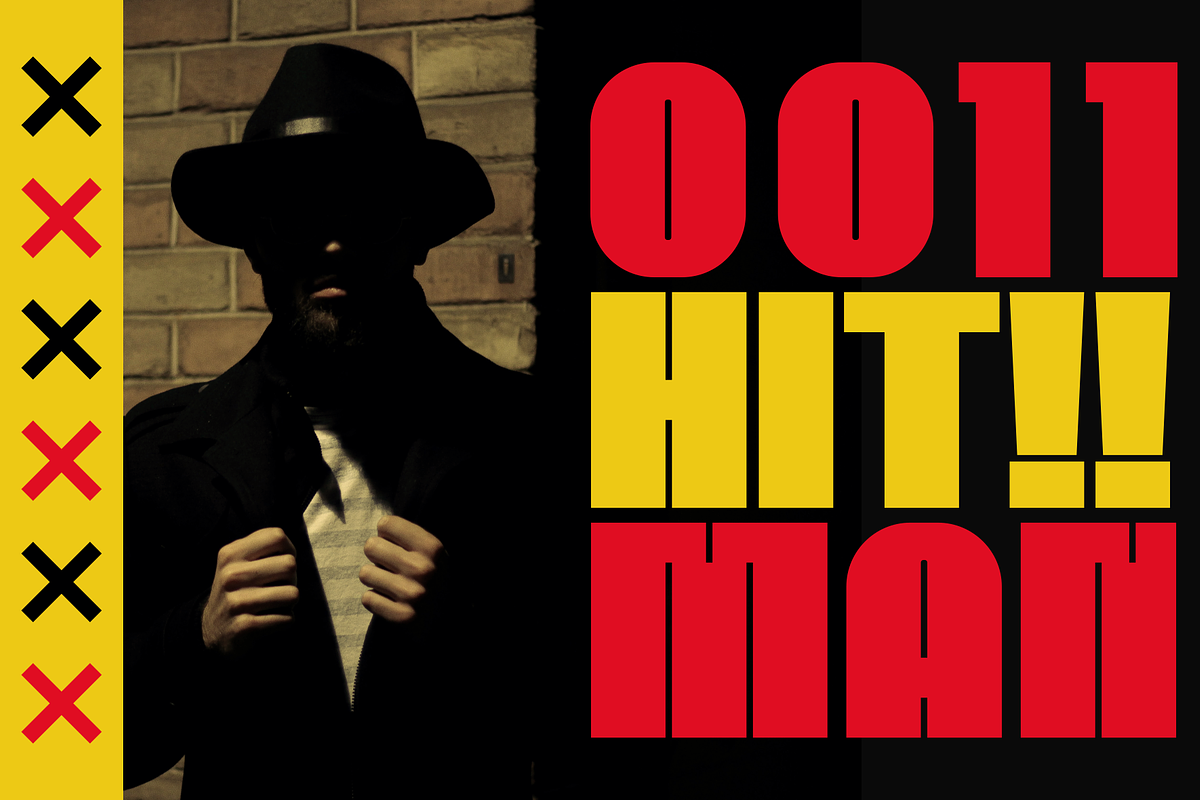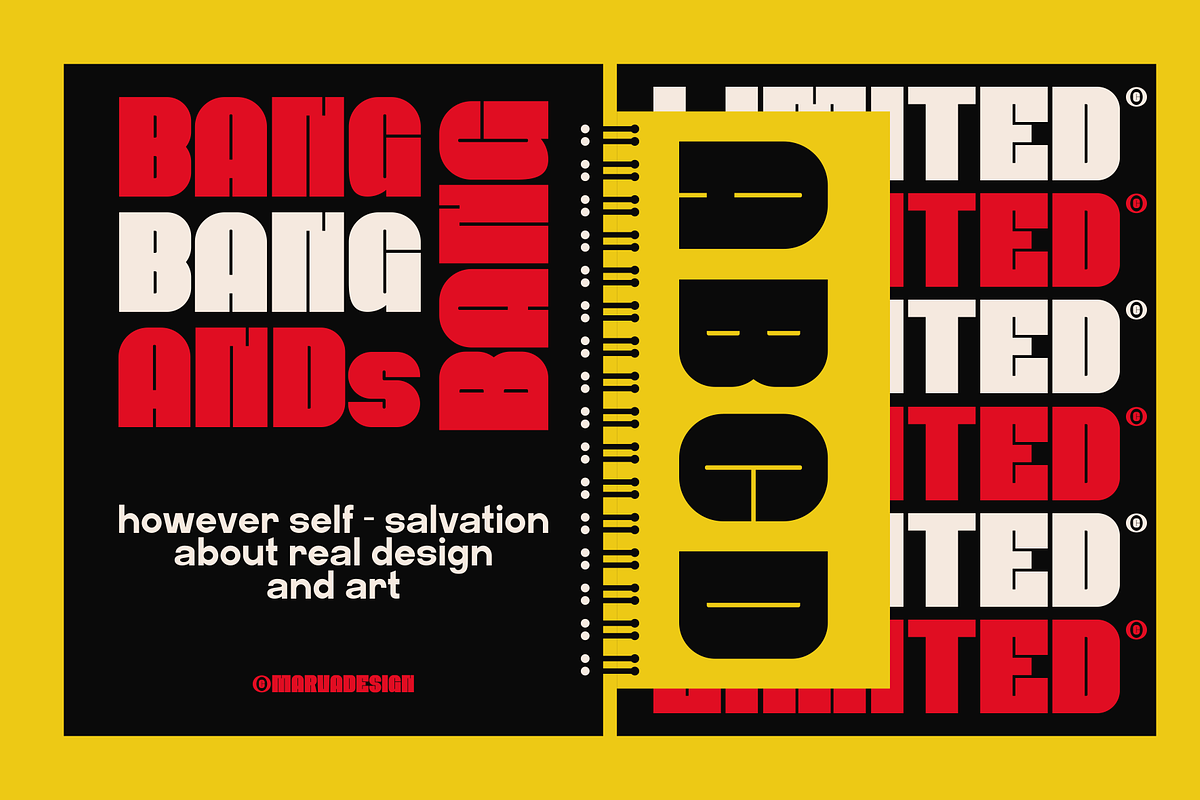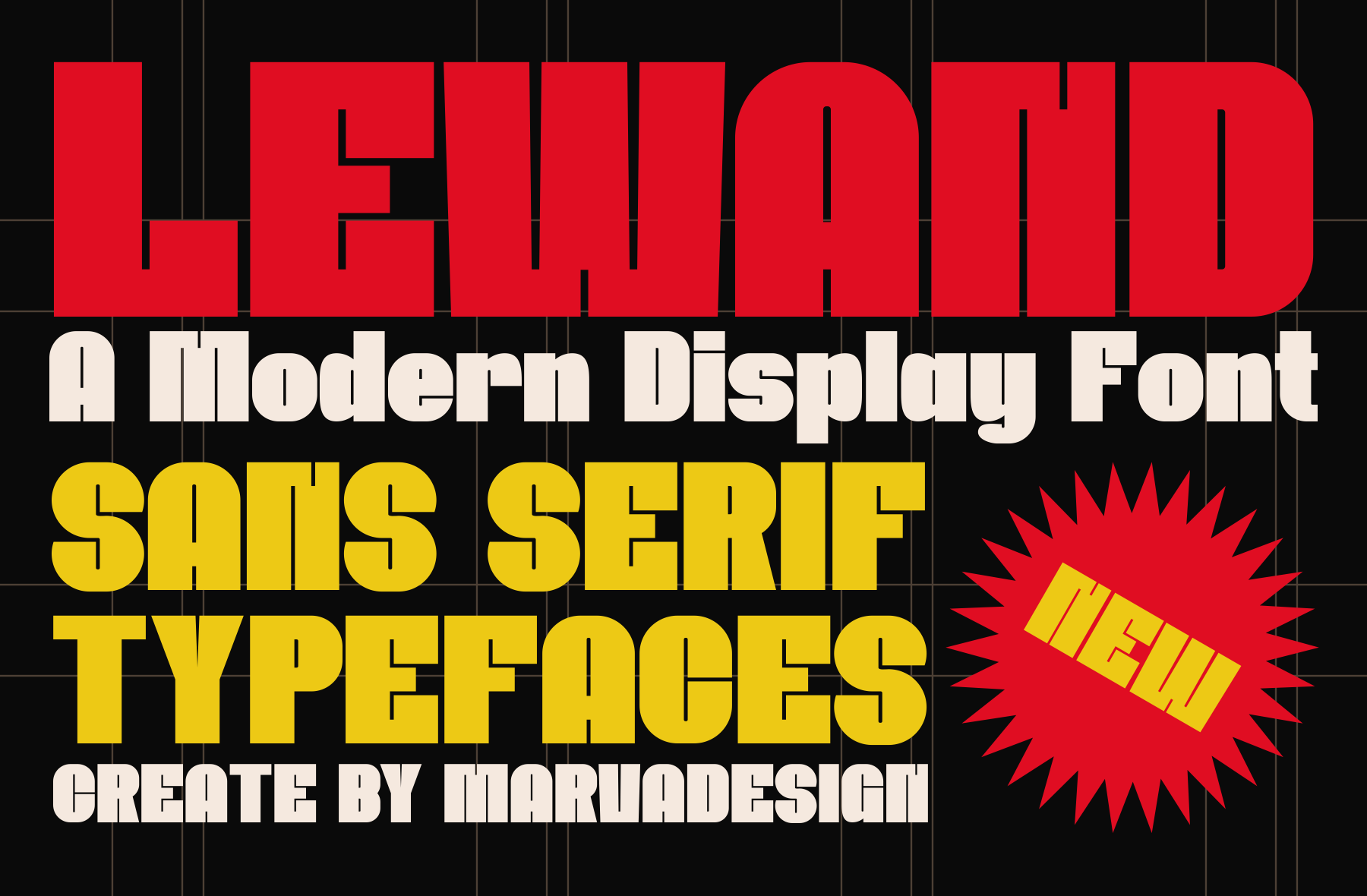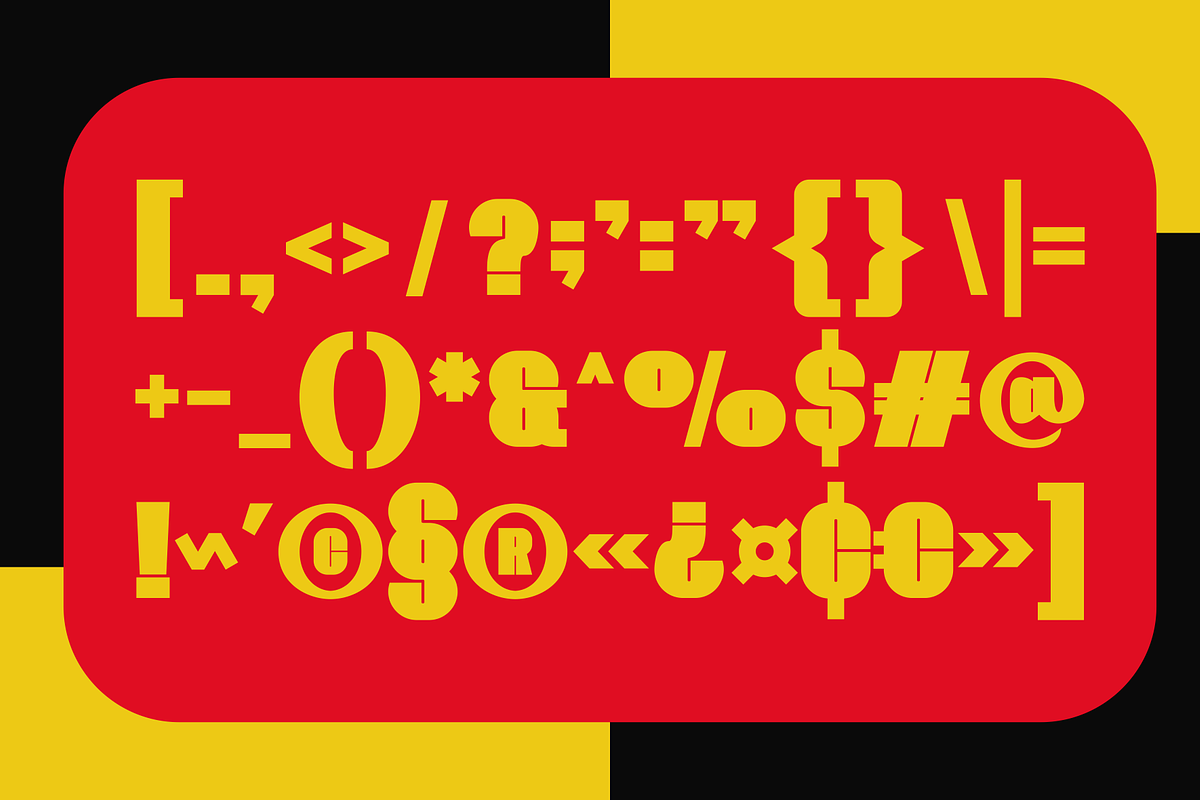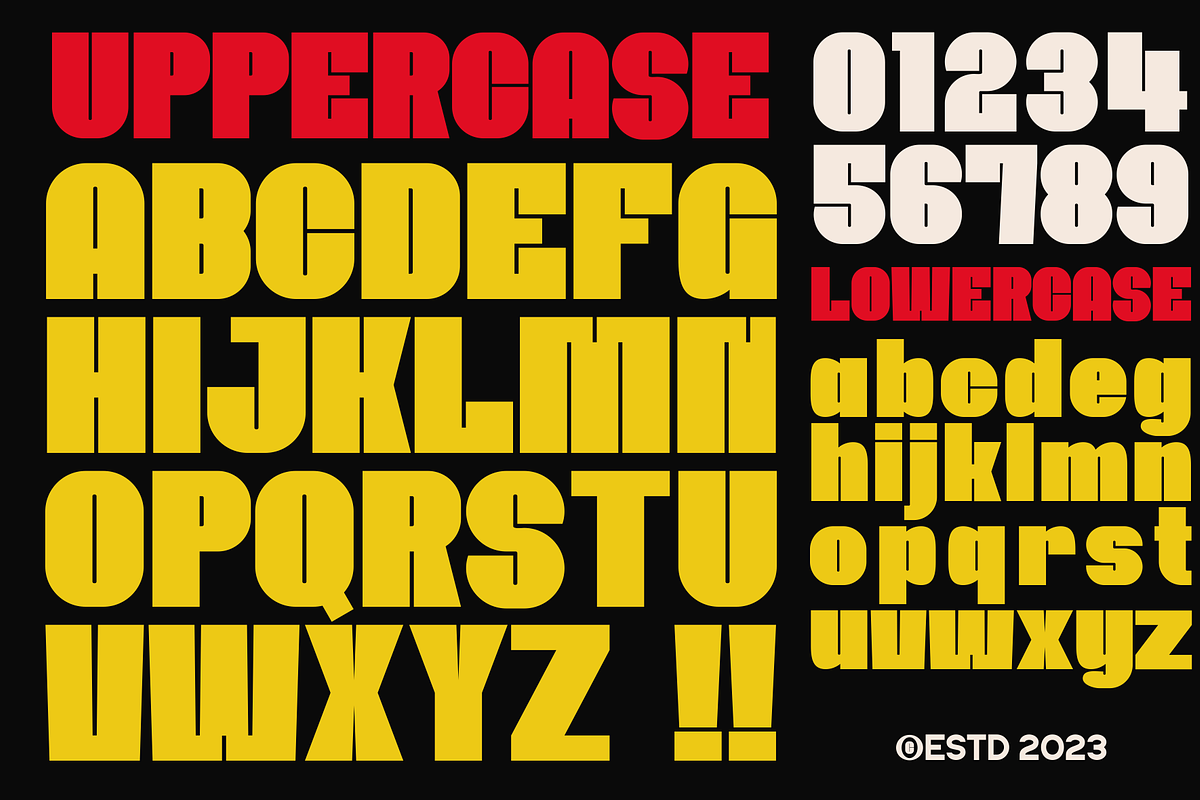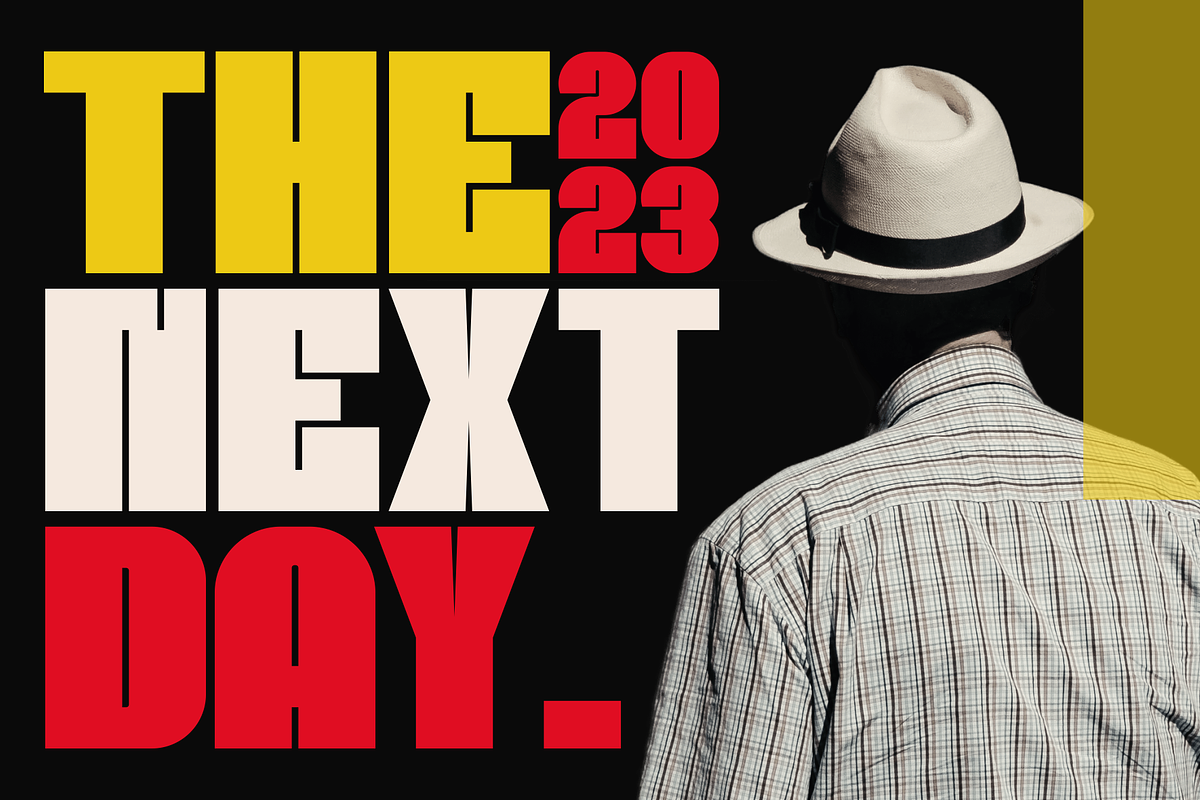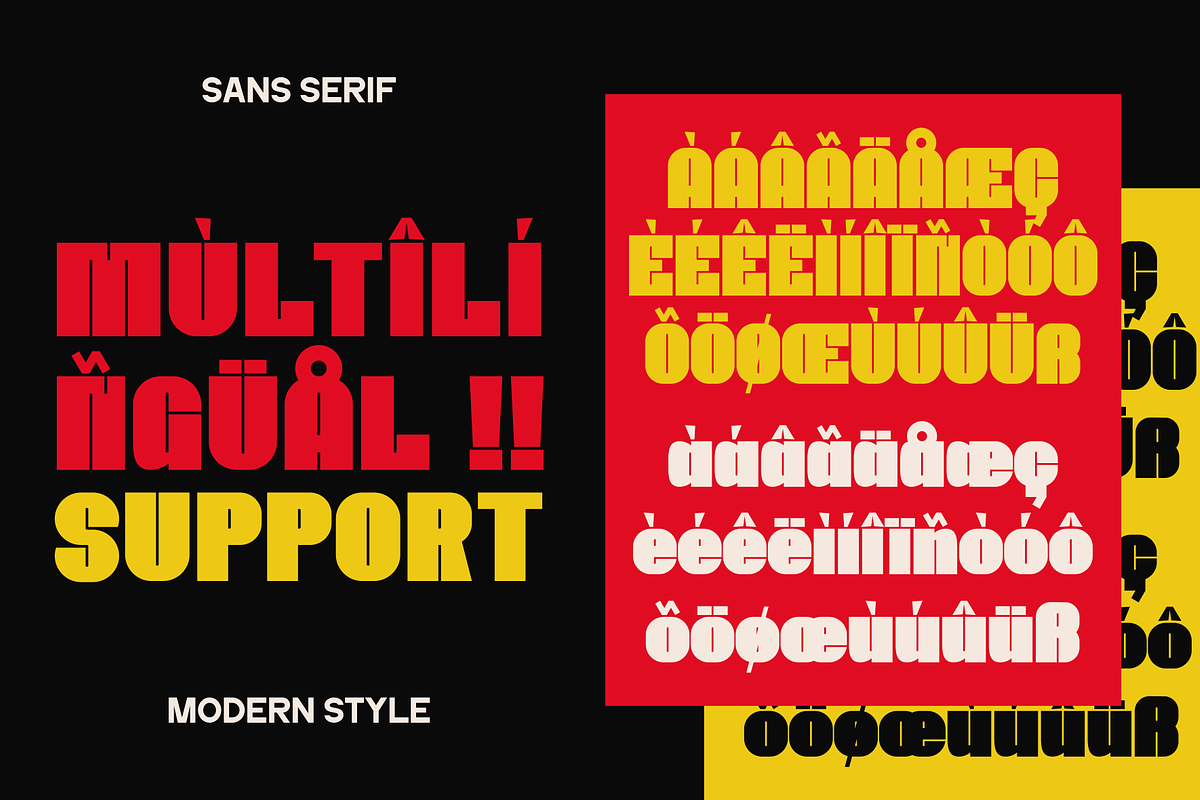
Lewand - A Modern Display Sans Font
Introducing our new product Lewand Font - Modern Font is a bold and authentic display font. The font is suitable for any branding project like logo, Template Design, Product and many more. outstanding in a wide range of contexts.